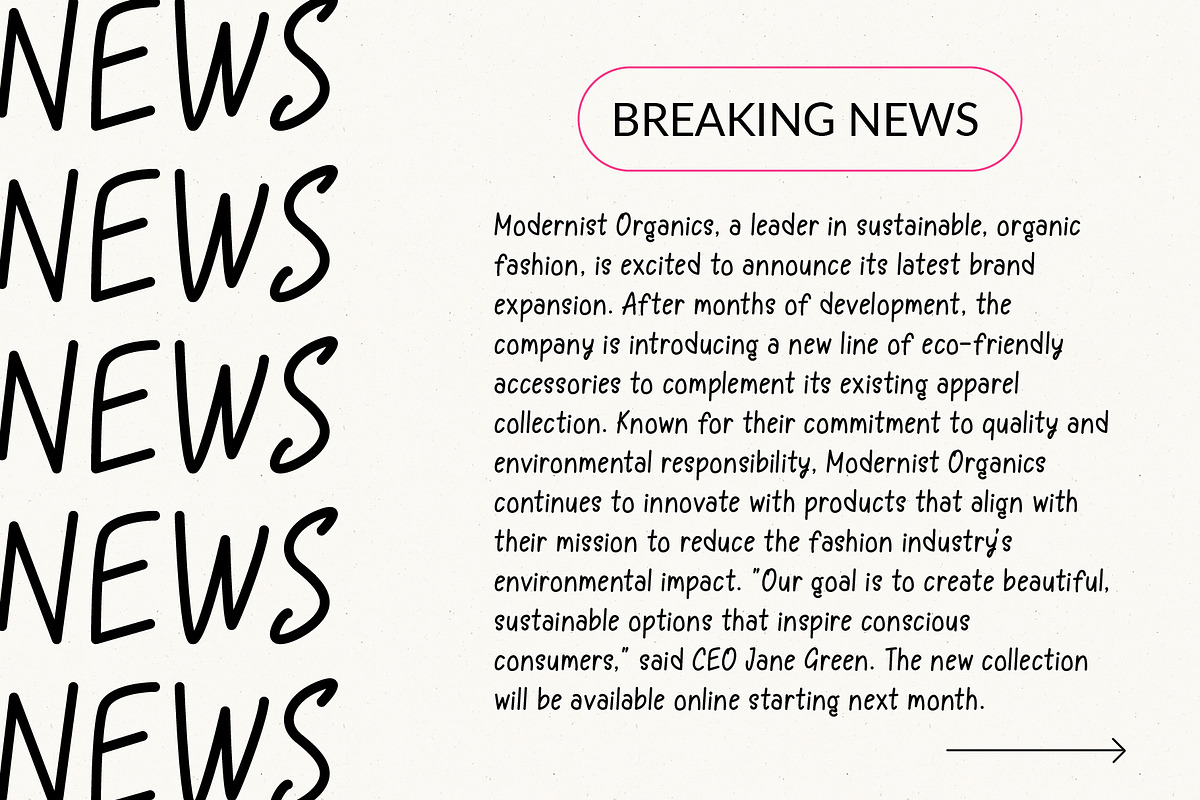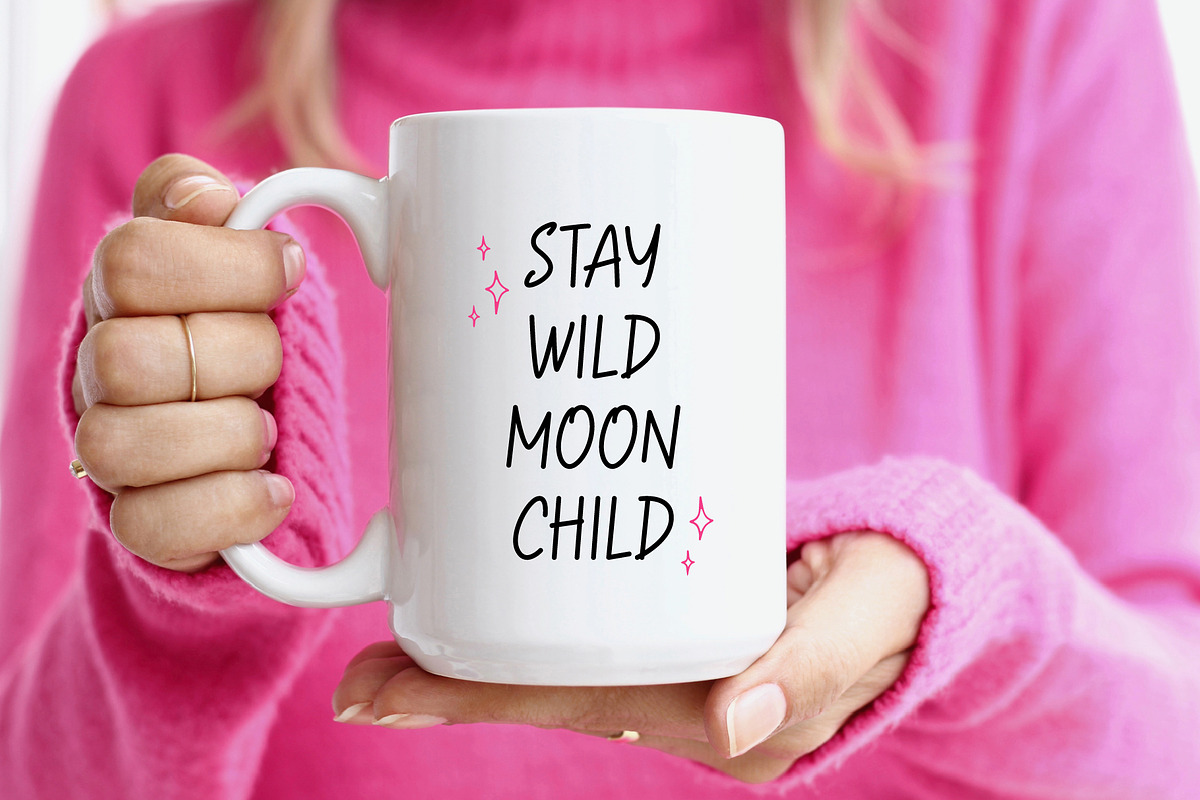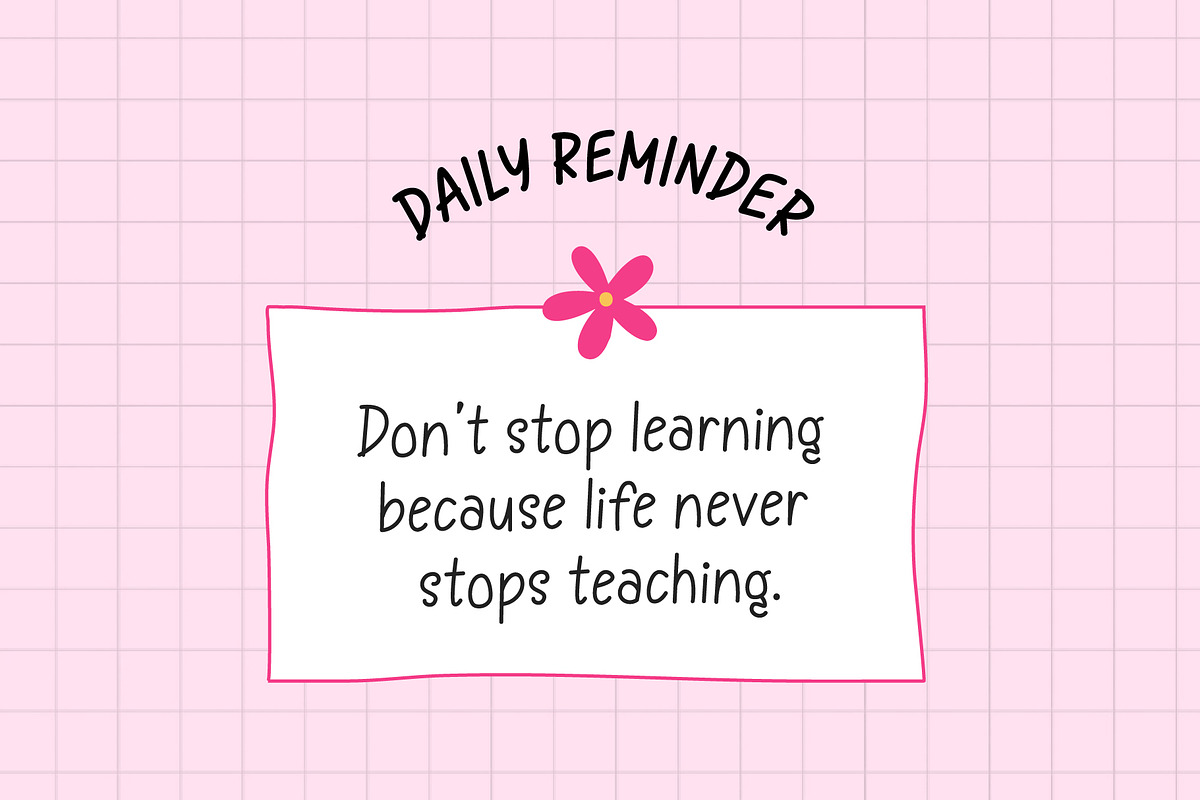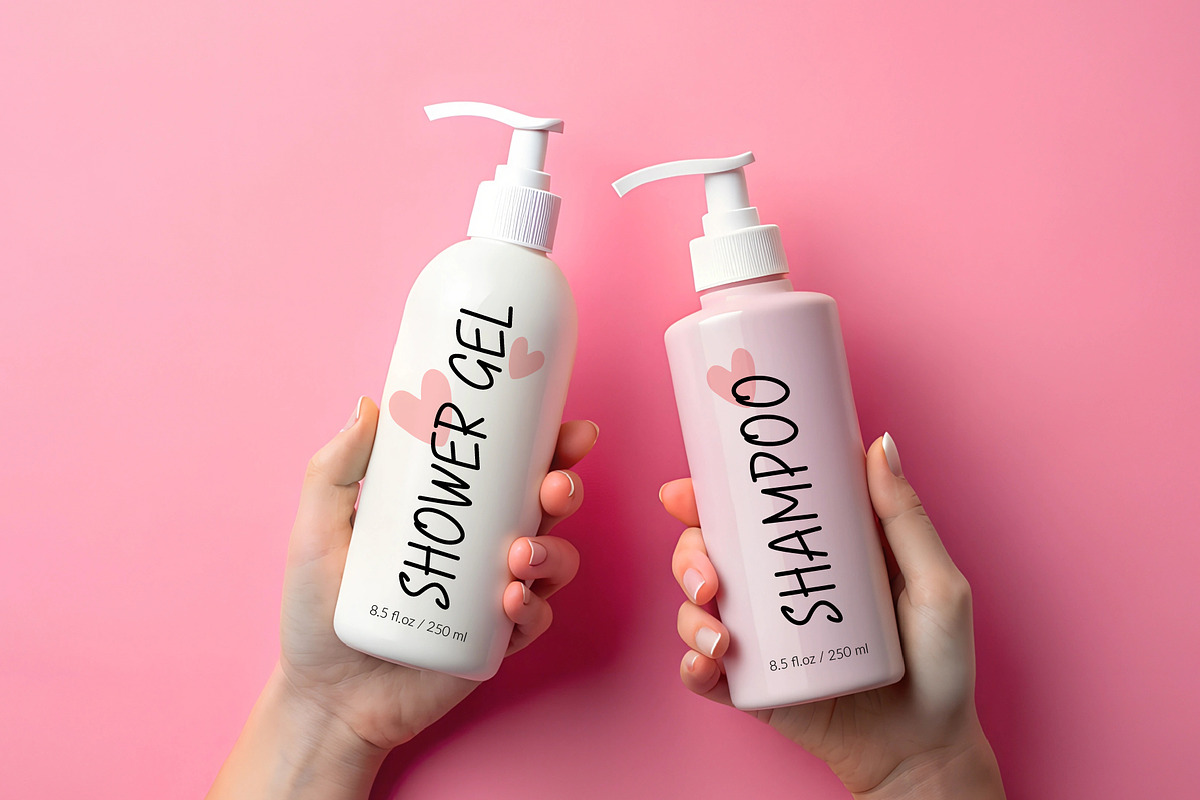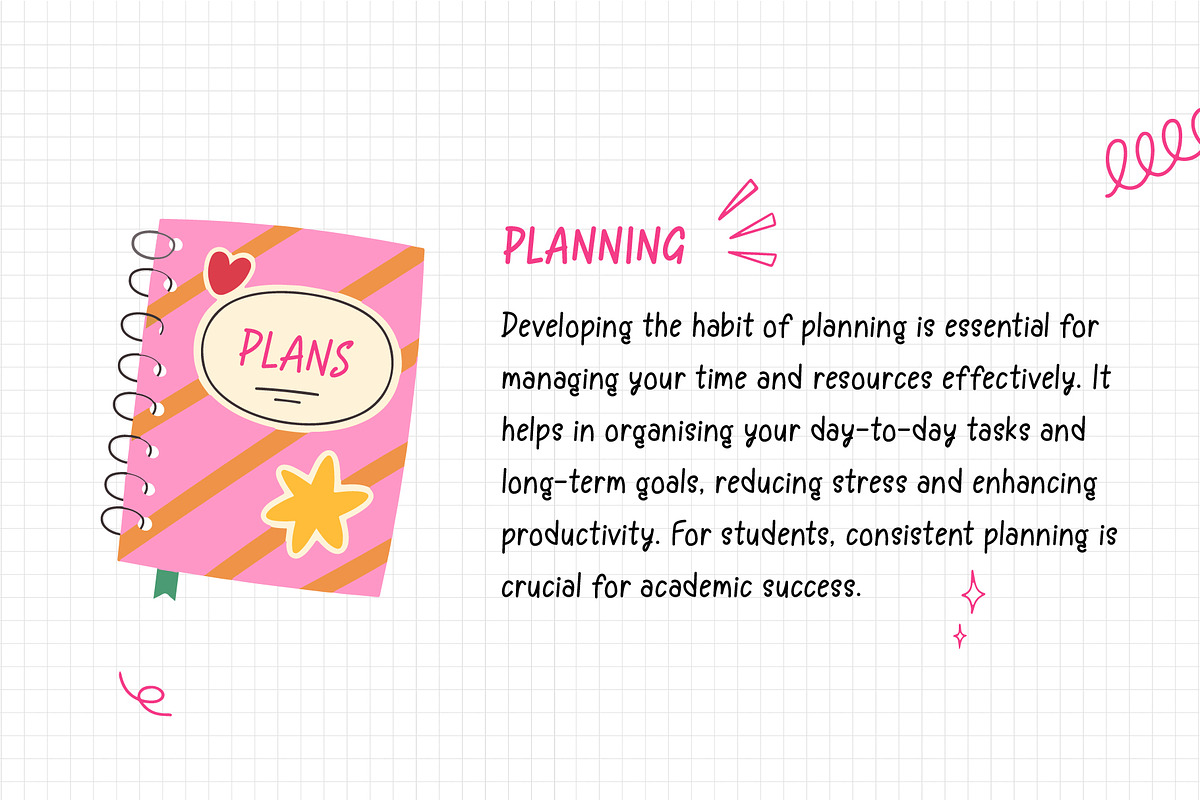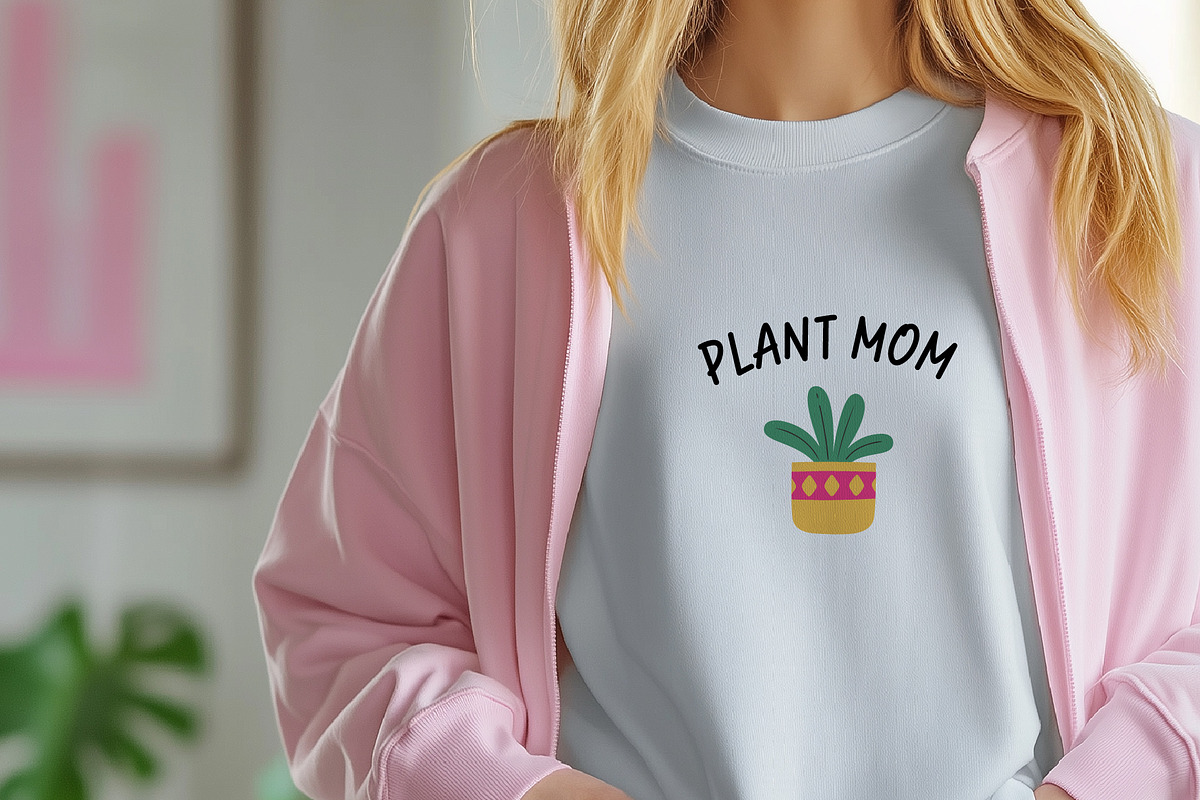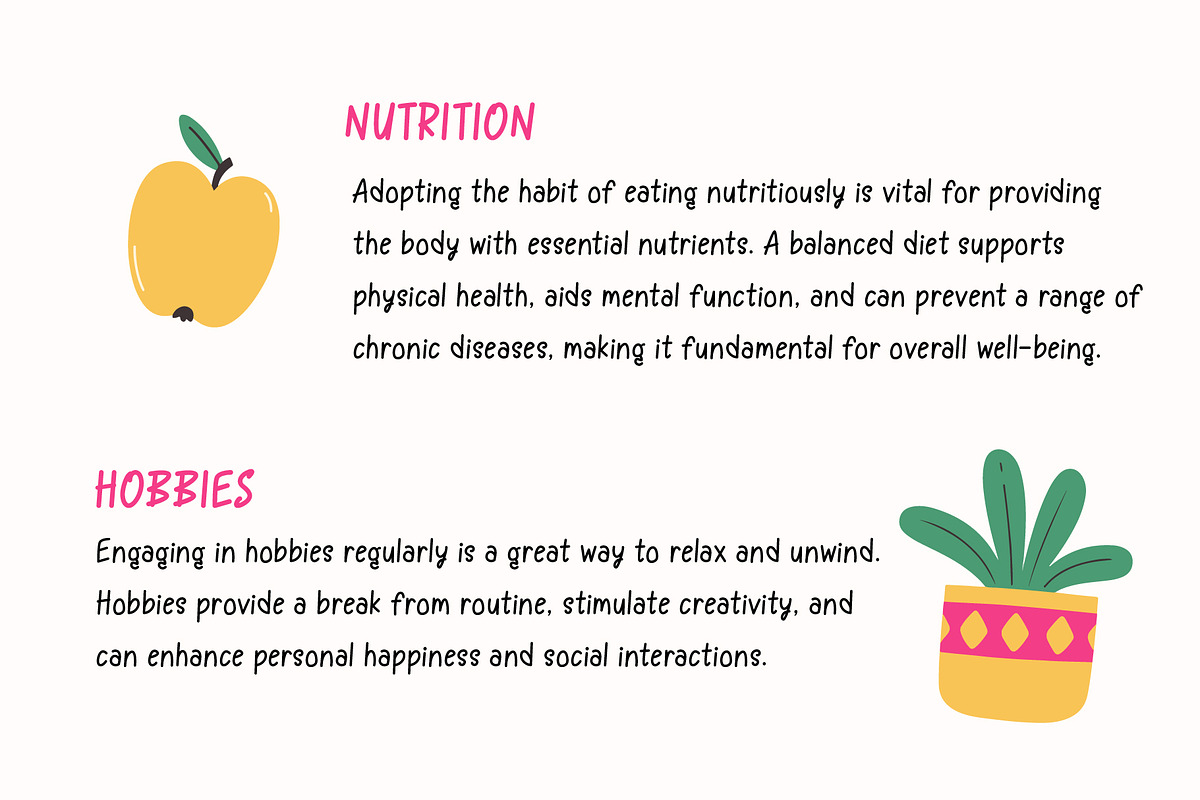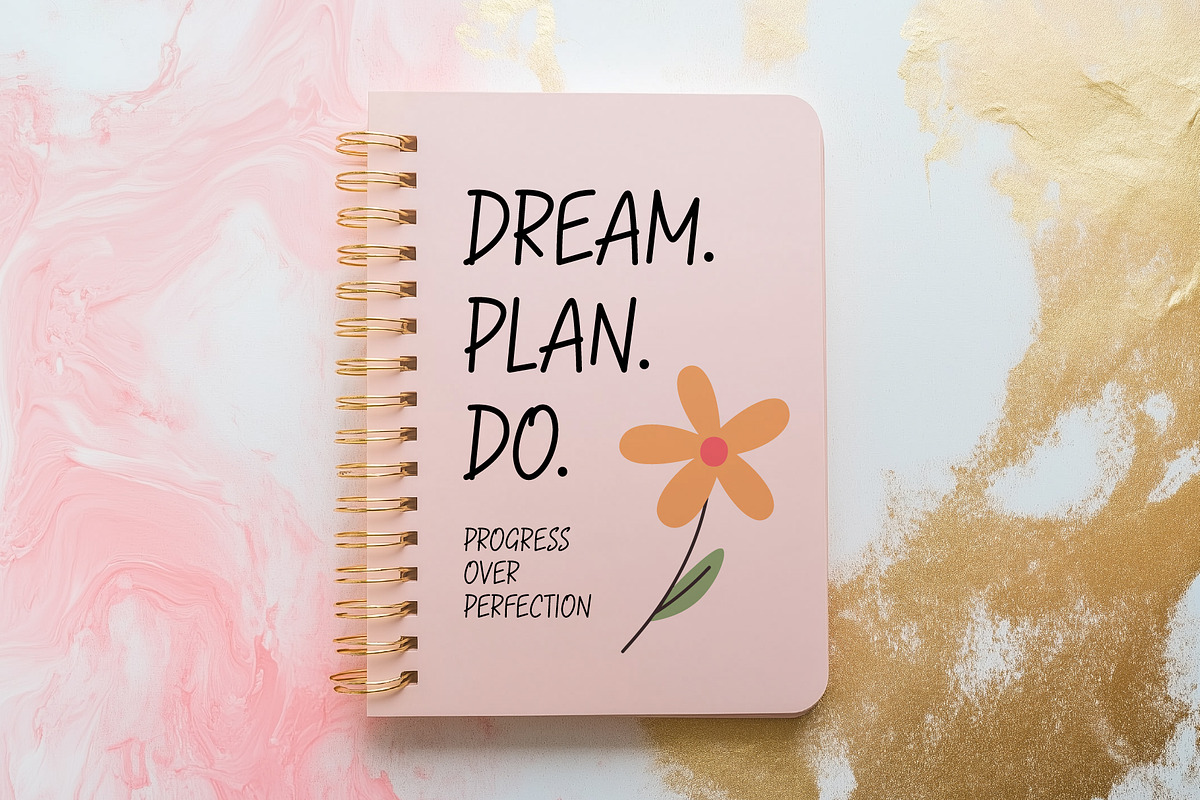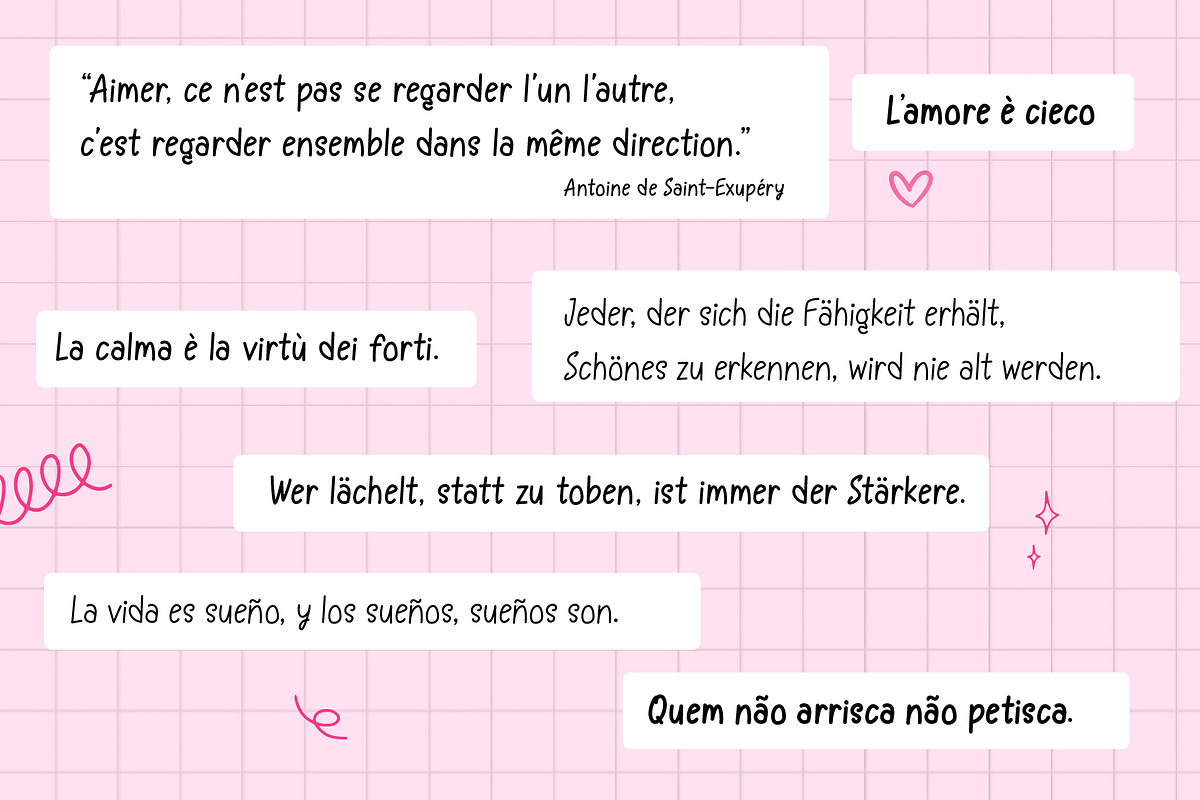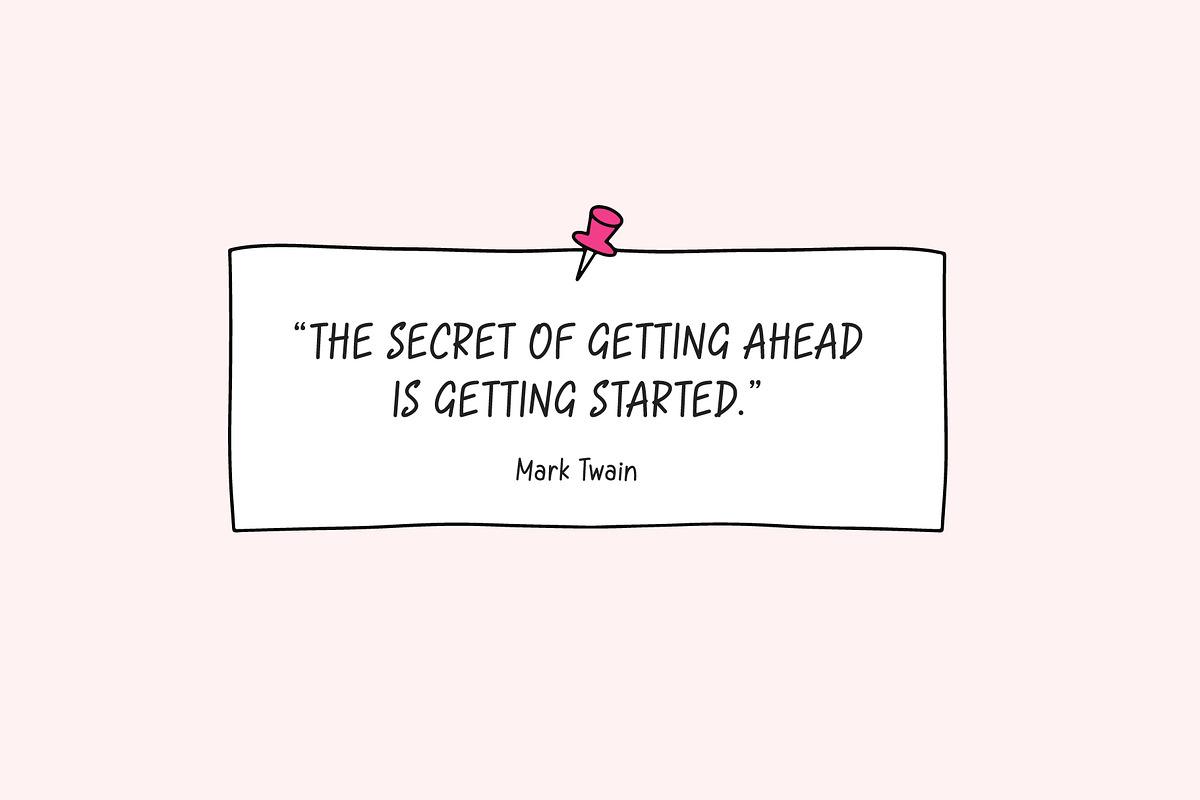
Brainstorm - handwriting font
Say hello to Brainstorm, a stylish handwriting font that brings warmth and personality to your designs. It is great for craft projects, invitations, greeting cards, logos, branding, social media, printed goods or anything that requires cute handwritten lettering.
This versatile font comes in three weights—light, regular, and bold— and it has international characters.
FONT FEATURES
• Relaxed handwriting style
• Standard characters (lowercase, uppercase, numbers, punctuation)
• Multilingual characters:
• 90+ Supported Languages: